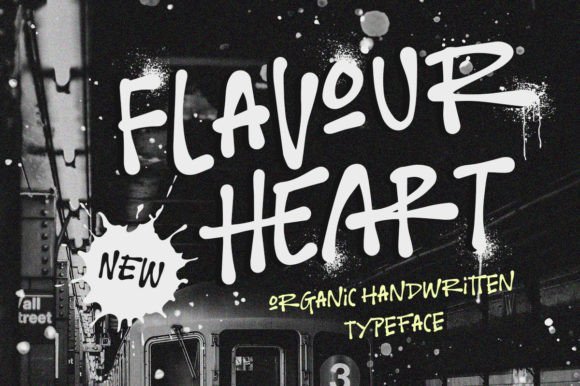
The Perfect Blend of Creativity and Design
Remember that moment when a single font choice made all the difference in a design project? The moment when the perfect typography elevates your work from good to great? For designers, finding that perfect font can be a game-changer. And for those who’ve been searching, we’re excited to introduce you to the Flavour Heart Font – a deliciously organic handwritten typeface that’s sure to leave a lasting impression.
Designed with headlines, display, and logotypes in mind, the Flavour Heart Font is perfect for making a statement. From logos and invitations to magazines and greeting cards, this font’s versatility makes it a valuable addition to any designer’s toolkit. With its PUA encoding, accessing the amazing glyphs and ligatures is a breeze, giving you the freedom to unleash your creativity and take your designs to the next level.
Flavour Heart Font Key Features
- Font Style: Script, Handwritten, Elegant
- Unique Characteristics: Distressed, textured, and vintage-inspired aesthetic
Flavour Heart Font Review
Overall, I found the Flavour Heart Font to be a unique and playful choice for designers looking to add some whimsy to their projects.
- Distinctive, hand-drawn aesthetic that adds a personal touch to designs.
- Wide range of weights and styles to choose from, making it suitable for various design applications.
- Flourishes and swashes add an extra layer of visual interest, perfect for creating eye-catching headlines.
- May not be suitable for formal or professional designs, as its playful nature can come across as unprofessional.
- Lack of consistency in font pairing, as some weights and styles may not work well together.
- Some characters may not be as refined or detailed as others, which can be distracting in certain contexts.
While the Flavour Heart Font has its limitations, it’s a great choice for designers who want to add a touch of personality to their work. Just be mindful of the context and make sure to pair it with other fonts that complement its unique aesthetic.
Flavour Heart Font is perfect for:
- Clothing and fashion design
- Home decor and stationery
For best results, use the font in combination with bright colors and playful graphics.
3 Creative Project Ideas using Flavour Heart Font
Create a unique and eye-catching wedding invitation by incorporating the Flavour Heart Font. This font adds a touch of playfulness and romance to any design.